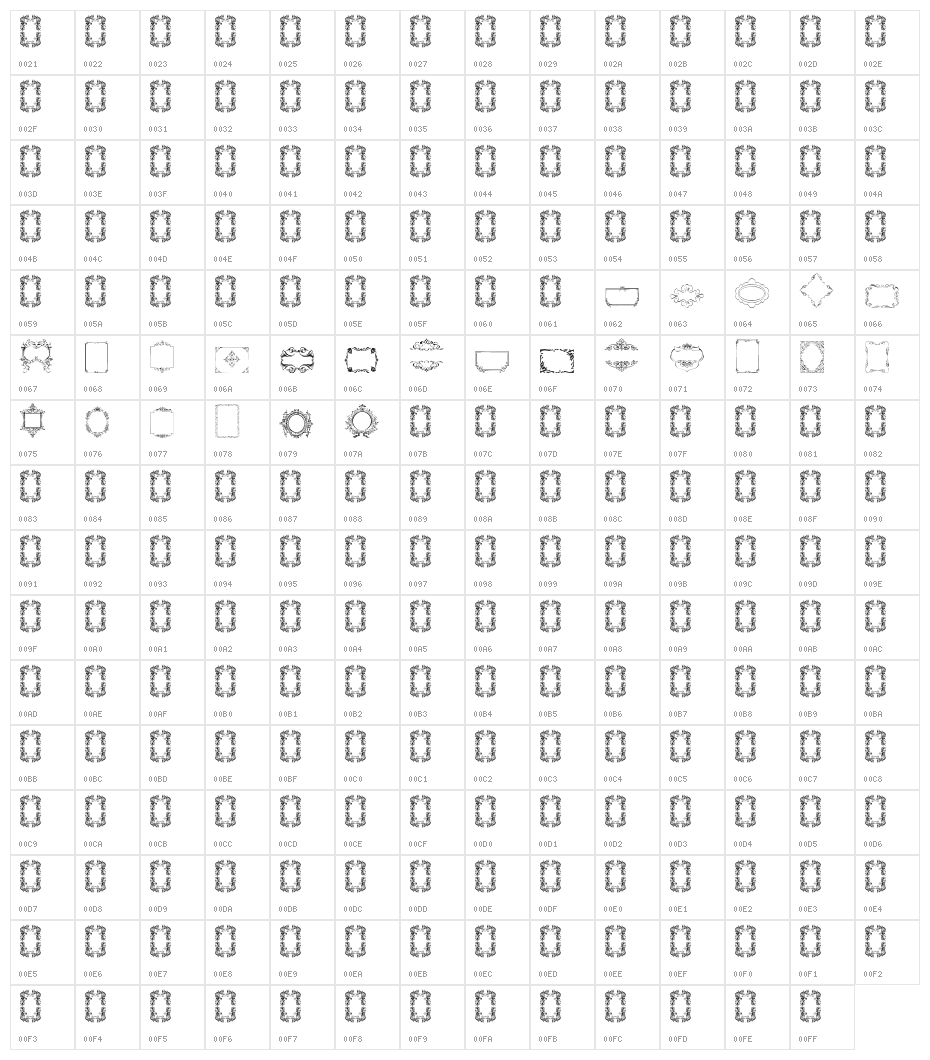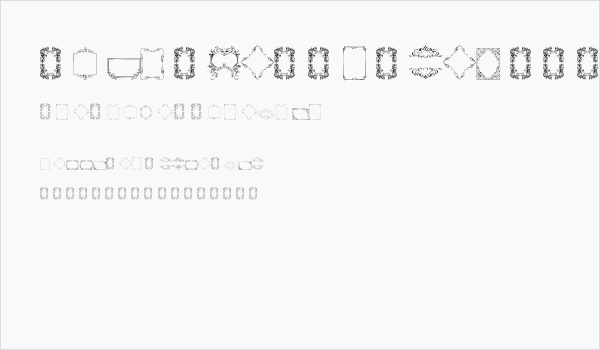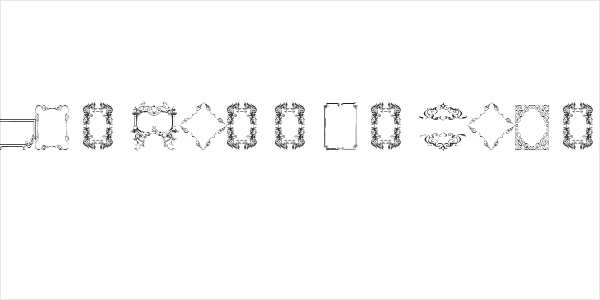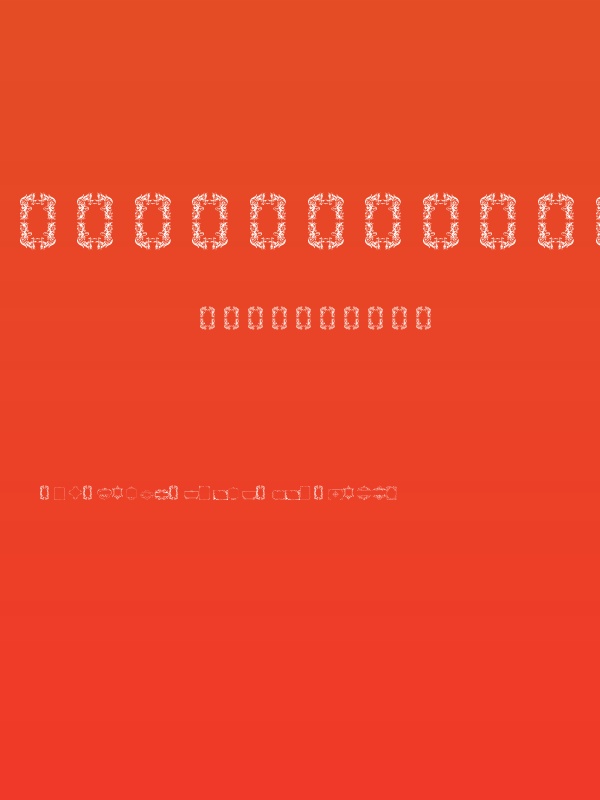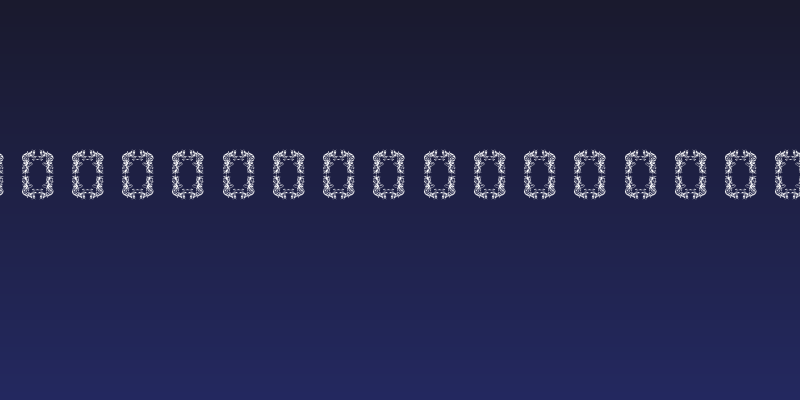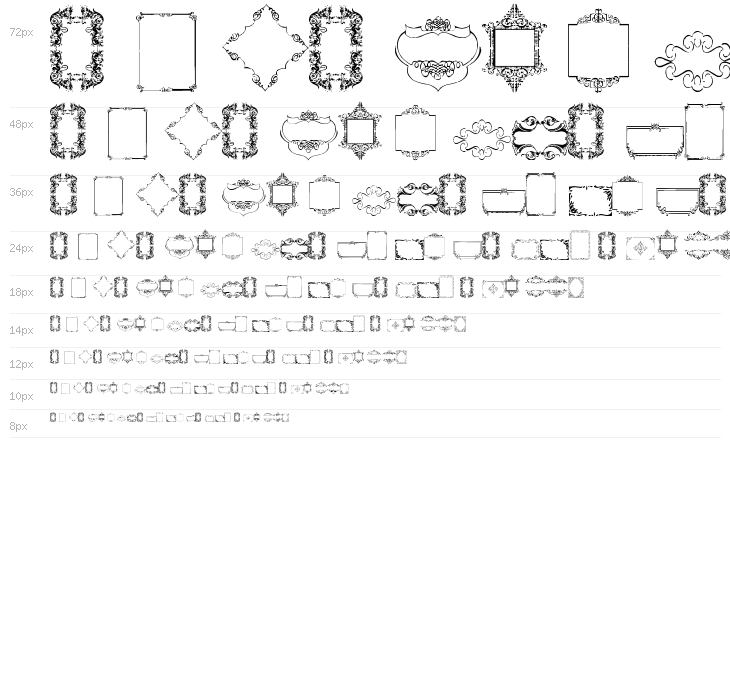
Vintage Frames 14 Font
Vintage Frames 14 Description
A collection of highly decorative, vintage-inspired ornamental frames with intricate floral and scrollwork details, each glyph representing a unique frame design rather than traditional alphanumeric characters.
| Overall Style | Vintage, Ornamental, Decorative |
| Use Case | Decorative elements, Borders, Frames, Invitations |
| Proposed Projects | Wedding invitations, certificates, vintage-themed posters, scrapbooking, decorative labels, branding for luxury or antique products. |